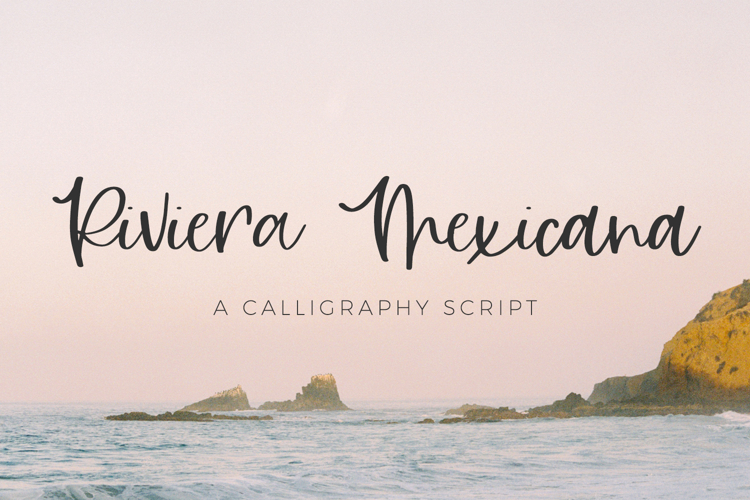
Introducing Riviera Mexicana, a bouncy romantic calligraphy script with extra features.
Riviera Mexicana is best for:
- website design + website accents - think travel blogs, fashion blogs, & more
Riviera Mexicana includes:
- 26 alternate lowercase characters
- 15 ligatures - bb, cc, dd, ee, ff, gg, kk, ll, mm, nn, oo, pp, ss, th, tt